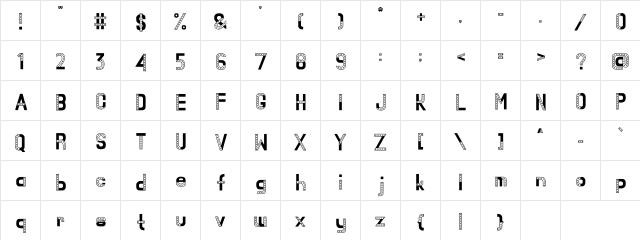
Roadtrack Regular
Design Context for Roadtrack Typeface
Roadtrack is a composed and adaptable typeface that performs quietly and consistently across a wide range of design contexts.